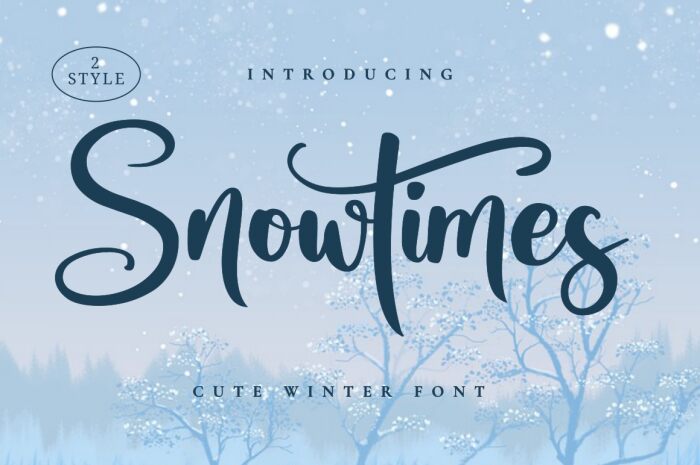
Snowtimes Italic, a captivating member of the Snowtimes font family, is a creation that embodies elegance and fluidity. Designed by Rissyletter Studio, this semi-light calligraphic typeface boasts a harmonious blend of classic charm and contemporary finesse. With its sweeping curves and refined italic slant, Snowtimes Italic presents an aesthetic that is both visually appealing and intimately expressive.
The font's calligraphy-inspired style exudes a personal touch that can add warmth to various design projects. Its semi-light weight ensures that it retains legibility while offering an airy, unobtrusive presence on the page. Whether gracing wedding invitations with its romantic allure or enhancing branding materials with a touch of sophistication, Snowtimes Italic adapts gracefully to each unique application.
The allure of Snowtimes Italic lies in its potential to transform words into visual poetry. Its distinct appearance – characterized by flowing ascenders and descenders – makes it particularly suited for use in contexts where design seeks to leave a lasting impression. From editorial layouts to personalized stationery, this font infuses every composition with its delicate yet impactful character.